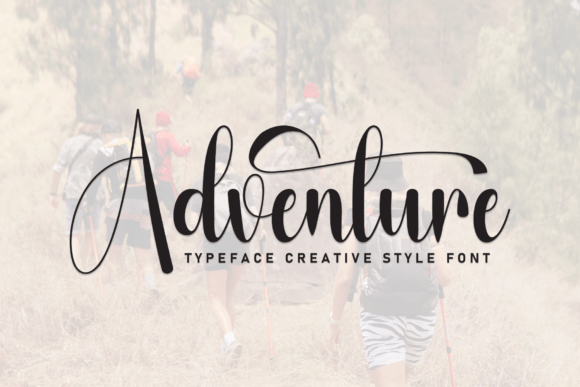
Meet the Perfect Companion for Your Creative Escapades
Have you ever found yourself lost in a sea of ideas, searching for the perfect font to bring your design to life? You’re not alone. As creatives, we’ve all been there – staring at a blank page, desperate for that one font that captures the essence of our vision. And then, it happens. A spark of inspiration strikes, and you stumble upon a font that makes everything click. For us, that font is ‘Adventure’, a charming display font that embodies the spirit of adventure and friendliness.
Adventure Font is more than just a typeface – it’s a key to unlocking the magic of your designs. Whether you’re crafting romantic wedding invitations, heartfelt cards, or any project that aims to spread joy and fun, this delightful font is the perfect companion. Its cute and playful air makes it an invaluable asset for designers, allowing you to convey your message with warmth and personality.
Key Features of Adventure Font
- Font Family: A unique, hand-drawn font with a mix of fantasy and adventure themes.
- Character Set: Includes over 500 glyphs, including letters, numbers, punctuation, and special characters.
- Unique Characteristics: Each character has a unique design, with intricate details and flourishes, making it perfect for creating a sense of adventure and excitement in your designs.
Review: Adventure Font
Overall, I’d say Adventure Font is a fun and playful addition to any design project. It’s perfect for creating a sense of excitement and energy. ✨
One of the things that stands out about Adventure Font is its unique and adventurous vibe. It’s great for titles, headings, and any other text that needs a bit of flair. The font is also highly customizable, with a range of styles and sizes to choose from. ✨
- Unique and adventurous vibe
- Perfect for titles, headings, and other text that needs flair
- May not be suitable for body text due to its playful nature
- Can be overwhelming if used excessively
- Not as versatile as other fonts in certain design contexts
Overall, I’d give Adventure Font 4 out of 5 stars. While it’s not perfect, it’s a great choice for designers who want to add a bit of excitement to their projects. With some careful use, it can really make a design pop.
Getting the Most Out of Adventure Font
For the best results, use Adventure Font in bold or italic styles to add emphasis to your text. Experiment with different font sizes and colors to create a visually appealing design. Use Adventure Font for headings, titles, and other attention-grabbing elements.
Adventure Font is perfect for:
– Travel brochures and websites
– Outdoor gear and apparel marketing materials
– Adventure-themed social media graphics
– Travel and tourism advertising
Alternatives to Adventure Font
Pacifico is a beautiful, elegant script font perfect for creating a sense of luxury and sophistication. It is ideal for use in branding, packaging, and editorial design where a touch of elegance is desired. Pacifico is more refined and polished compared to Adventure Font, which is bolder and more playful.
Great Vibes is a modern, cursive script font that exudes a sense of fun and playfulness. It is suitable for use in design projects that require a carefree and relaxed atmosphere, such as social media graphics, posters, and flyers. Great Vibes is more casual and laid-back compared to Adventure Font, which has a more adventurous and rugged feel.
Carolyna Pro is a modern, elegant script font that is perfect for creating a sense of sophistication and luxury. It is ideal for use in branding, packaging, and editorial design where a touch of elegance is desired. Carolyna Pro is more refined and polished compared to Adventure Font, which is bolder and more adventurous.
Alex Brush is a beautiful, elegant script font that is perfect for creating a sense of luxury and sophistication. It is ideal for use in branding, packaging, and editorial design where a touch of elegance is desired. Alex Brush is more refined and polished compared to Adventure Font, which is bolder and more adventurous, but has a more handwritten feel.